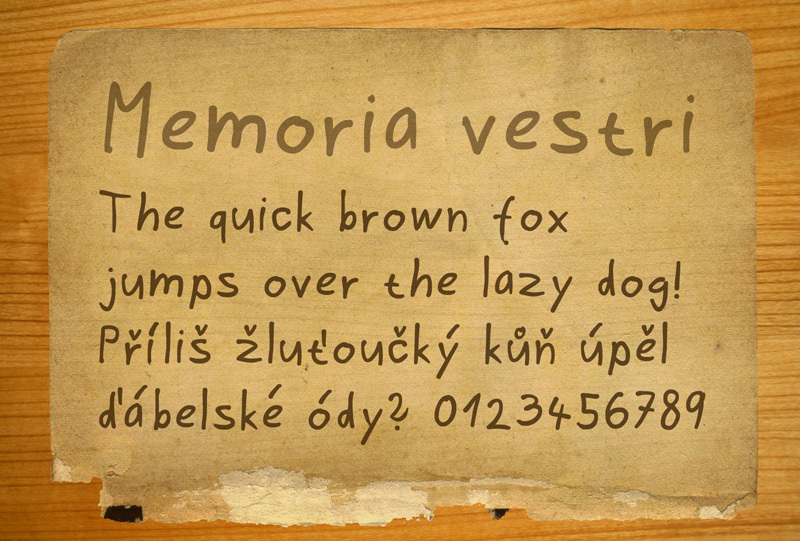
Memoria vestri, created by Zdenek Gromnica, also known as FutureMillennium of Groovy General, is a free casual handwritten font with an easy marker-like flow. The letters lean and wander slightly, with rounded turns and changing stroke widths that preserve the motion of quick handwriting. It feels personal and genuinely unforced.
Personal stationery is its strongest setting, where the loose forms suit notes, invitations, and informal event graphics. On packaging and small business branding, the hand-drawn lettering can become part of a friendly maker identity rather than a formal label.
The font includes accents for Czech, Slovak, German, French, Italian, Hungarian, and Finnish.
Memoria vestri